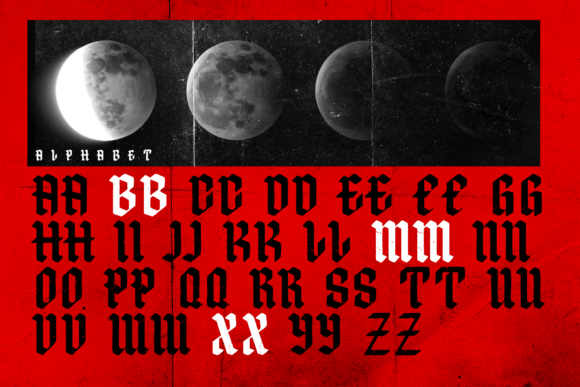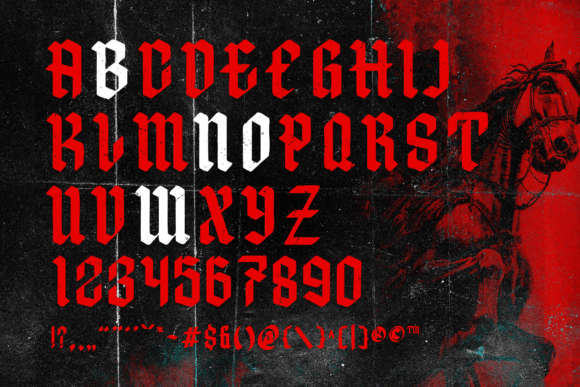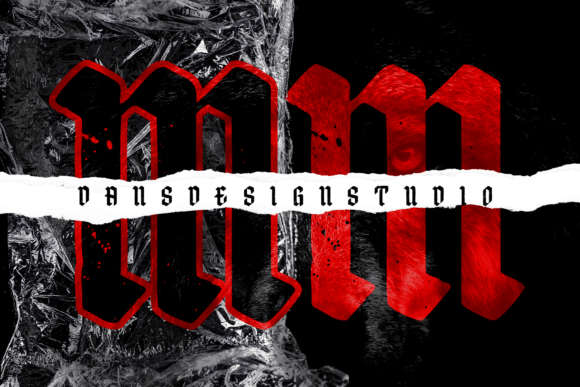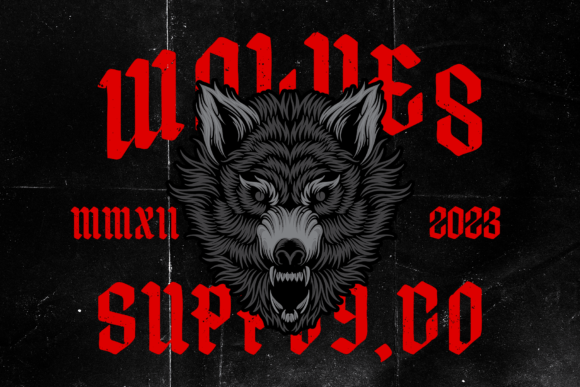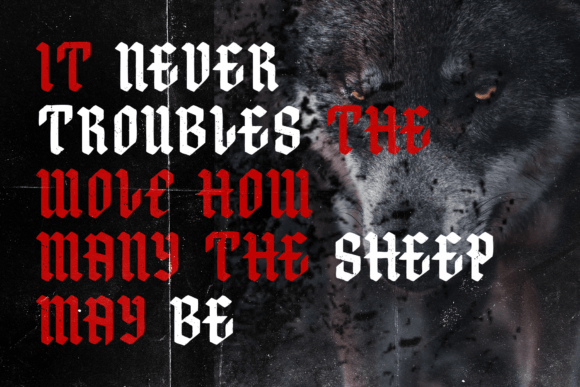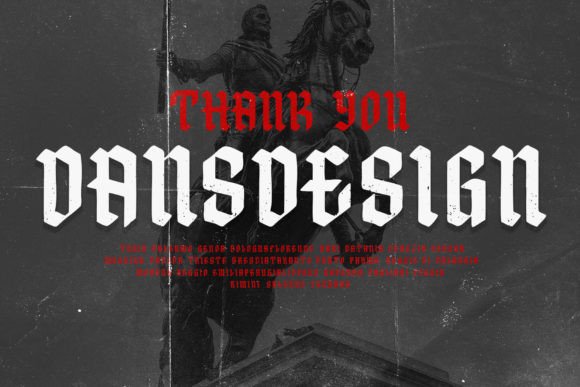
Unleash the Power of GLORYNES Modern Blackletters Font: A Horror Metal Masterpiece
In the realm of typography, few fonts evoke the same level of intrigue and edginess as the GLORYNES Modern Blackletters Font. This distinct, highly detailed, and Horror Metal Font is a game-changer for designers and crafters seeking to add a touch of darkness and sophistication to their projects. Whether you’re working on exquisite music designs, posters, retro-urban designs, tattoo business branding, logos, vintage designs, or more, GLORYNES is the perfect choice.
The Essence of GLORYNES Modern Blackletters Font
GLORYNES Modern Blackletters Font is a masterfully crafted typeface that embodies the spirit of horror metal. Its intricate details and bold design make it an ideal choice for projects that require a strong, attention-grabbing aesthetic. The font’s unique blend of modern and traditional elements creates a captivating visual experience that is sure to leave a lasting impression.
Key Features of GLORYNES Font
- Distinct and Highly Detailed Design: GLORYNES boasts a one-of-a-kind design that is meticulously crafted to deliver a high level of detail and precision.
- Horror Metal Aesthetic: This font is deeply rooted in the horror metal genre, making it perfect for music designs, album covers, and other related projects.
- Versatility: GLORYNES is an incredibly versatile font that can be used for a wide range of applications, from posters and logos to tattoo business branding and vintage designs.
- Modern Blackletters Style: The font’s modern blackletters style adds a touch of sophistication and elegance to any project, making it perfect for designers seeking to create a bold yet refined look.
Use Cases for GLORYNES Modern Blackletters Font
GLORYNES is an incredibly versatile font that can be used in a variety of contexts. Here are some of the most popular use cases for this amazing font:
- Music Designs: GLORYNES is perfect for music designs, including album covers, concert posters, and music video titles.
- Posters: The font’s bold and attention-grabbing design makes it ideal for posters, flyers, and other promotional materials.
- Retro-Urban Designs: GLORYNES can add a touch of edginess and sophistication to retro-urban designs, making it perfect for clothing brands, skateboard decks, and other related projects.
- Tattoo Business Branding: The font’s horror metal aesthetic and modern blackletters style make it an excellent choice for tattoo business branding, including logos, business cards, and website headers.
- Logos and Vintage Designs: GLORYNES can also be used to create stunning logos and vintage designs that require a bold and eye-catching font.
Why Choose GLORYNES Modern Blackletters Font?
With so many fonts available, why choose GLORYNES Modern Blackletters Font? Here are just a few reasons why this font stands out from the rest:
- Unique Design: GLORYNES boasts a one-of-a-kind design that is sure to set your project apart from the competition.
- Highly Versatile: The font’s versatility makes it perfect for a wide range of applications and projects.
- Attention-Grabbing Aesthetic: GLORYNES is designed to grab attention and leave a lasting impression, making it perfect for projects that require a strong visual impact.
In conclusion, GLORYNES Modern Blackletters Font is a powerful and versatile typeface that is perfect for designers and crafters seeking to add a touch of darkness and sophistication to their projects. With its unique design, highly detailed aesthetic, and horror metal roots, this font is sure to make a lasting impression. Whether you’re working on music designs, posters, retro-urban designs, tattoo business branding, logos, vintage designs, or more, GLORYNES is the perfect choice.